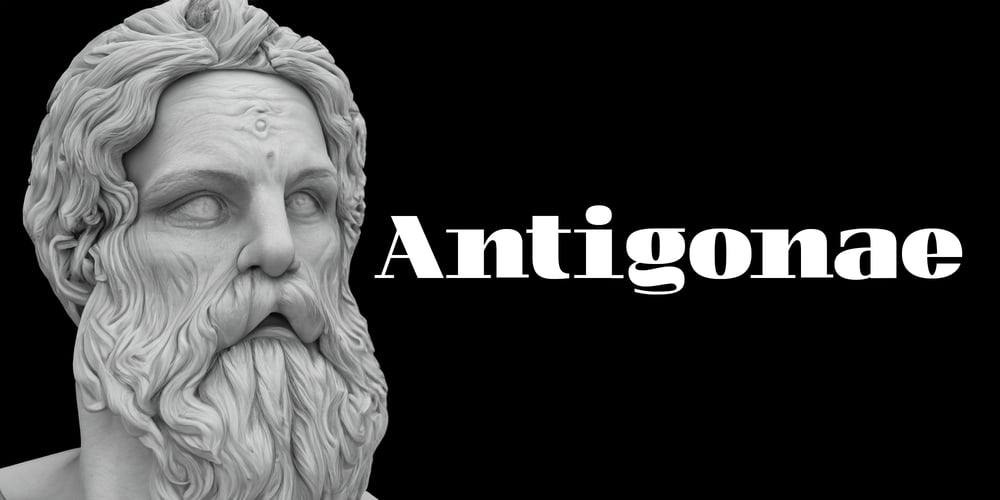
Antigonae
Antigonae font
Antigonae Font Family was designed by Leonhard Katschner and published by Brave Type. Antigonae contains 1 styles and family package options. Antigonae draws inspiration from classical Didoni fonts, yet it seeks to bring this genre into contemporary times. By dropping serifs and reconstructing letterforms, Antigonae offers a fresh, modern aesthetic. This innovative approach not only honors traditional design principles but also enhances visual appeal for today’s audiences. With its refined and sophisticated look, Antigonae is perfect for a wide range of applications, from editorial design to branding, making a bold statement while maintaining timeless elegance.